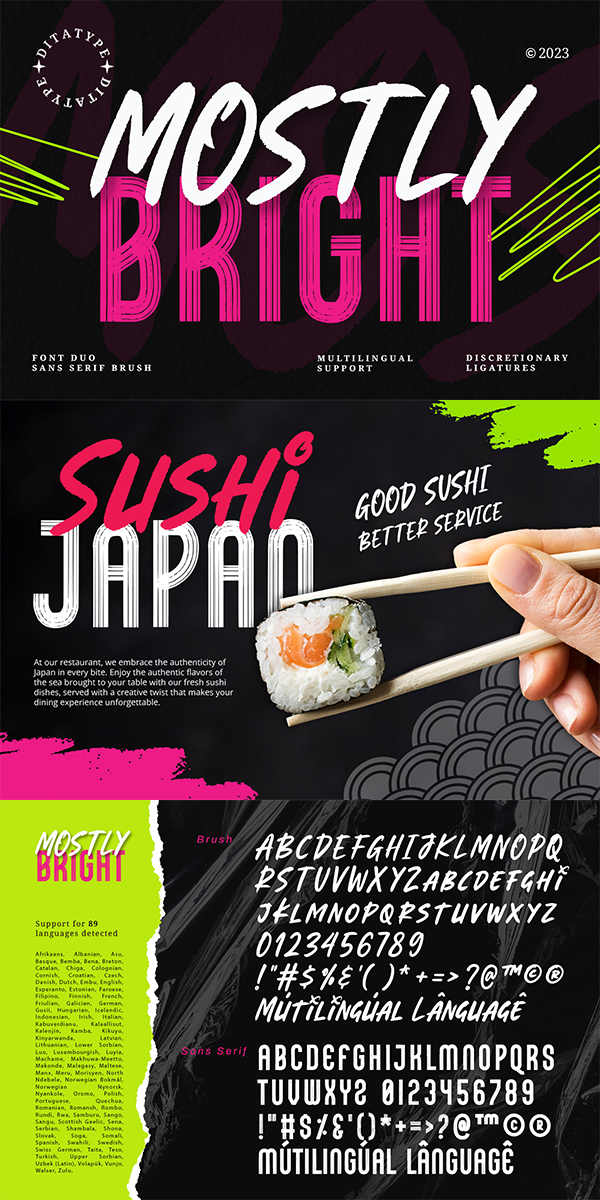
Mostly Bright Font
About Mostly Bright
Mostly Bright, a dynamic font duo that effortlessly combines the contrasting styles of sans-serif and brush fonts. The sans-serif component of this font is a testament to clean lines and modern minimalism. Its characters are created with precision and defined strokes, offering a sharp and sleek appearance that exudes professionalism and readability.
On the other hand, the brush font in Mostly Bright adds an expressive and handcrafted touch to your designs. It embodies the authenticity of hand-lettered strokes, with each character bearing the organic irregularities of brushwork. This brush font retains the proportions of the sans-serif, ensuring that the two styles harmoniously coexist. In addition, enjoy the features here.
Mostly Bright fits in headlines, logos, posters, flyers, branding materials, print media, editorial layouts, and many more designs. Find out more ways to use this font by taking a look at the font preview.